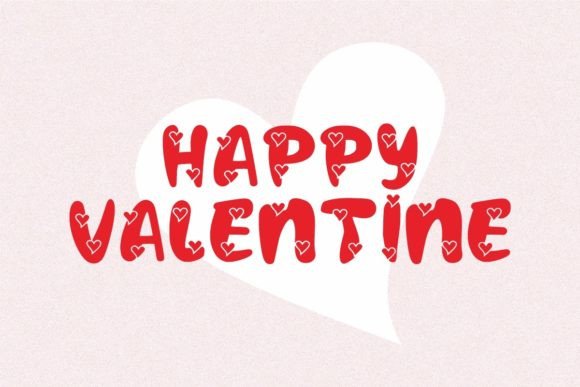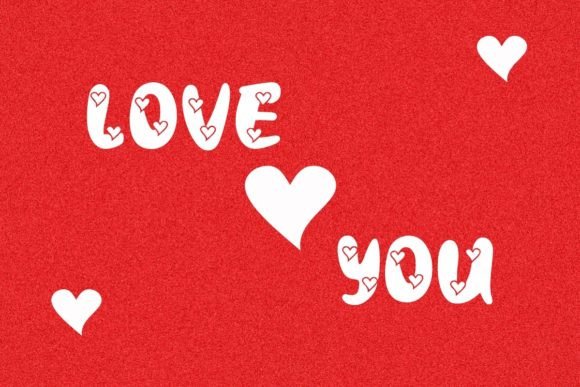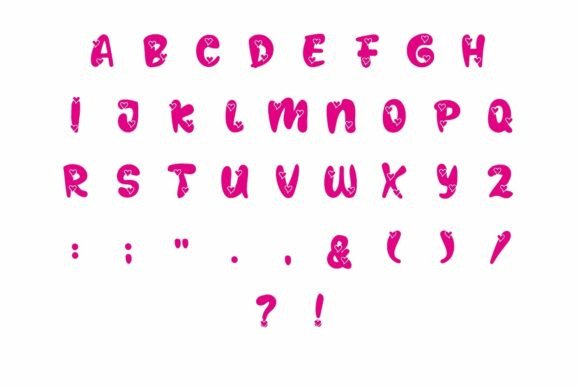
Introduction to Rungkad Font
Do you ever find yourself browsing through design resources, searching for the perfect font to match your creative project’s unique vibe? For many designers, the hunt for the perfect font can be a daunting task, especially when it comes to finding a font that exudes love and playfulness. If you’re anything like me, you’ve probably spent hours scrolling through font collections, only to come across a font that immediately sparks joy.
That’s exactly what the Rungkad Font does – it instantly puts a smile on your face and makes you want to create something special. With its bouncy, romantic typography, this font is perfect for crafting, digital designs, presentations, or making greeting cards. And the best part? It’s available for free download, making it a valuable asset for designers of all levels.
Key Features of Rungkad Font
- Rungkad Font is a unique design resource ideal for creative projects requiring a bold, modern look.
- The font’s unique characteristics include a modern, bold design and a wide range of styles, making it an excellent choice for designers looking to add a touch of sophistication to their creative projects.
Honest Review: Rungkad Font
I recently had the opportunity to work with the Rungkad Font in one of my creative projects, and I must say it’s been a game-changer. This design resource is a must-have for any designer looking to add a unique touch to their work.
- ✨ High-quality typography: The Rungkad Font boasts beautiful, intricate details that make it perfect for various design applications.
- ⚠️ Limited font styles: While the Rungkad Font is beautiful, it’s limited to a single style, which might not be suitable for projects requiring multiple font variations.
- ⚠️ Not suitable for large-scale use: Due to its intricate details, the Rungkad Font might not be the best choice for large-scale designs or publications.
Overall, the Rungkad Font is a high-quality design resource that can elevate your creative projects. While it has some limitations, its unique features and free download make it a worthwhile addition to any designer’s toolkit.
Rungkad Font is suitable for various design projects, including logos, brochures, posters, and business cards. It’s also ideal for creating eye-catching titles, headings, and captions.